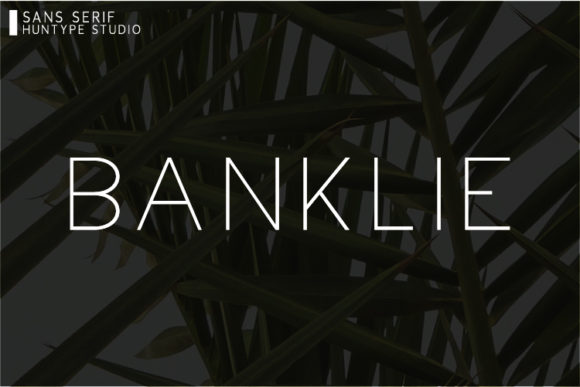
Introducing Banklie Font, the chic sans serif that will transform your designs into works of art.
Indulge in its elegant curves and crisp lines, meticulously crafted to evoke the captivating allure of a beauty salon. Whether you're designing alluring logos, captivating social media posts, or chic invitations, Banklie will add a touch of sophistication to your creations.
Its versatile nature empowers you to express your creativity without limits. From delicate wedding invitations to bold marketing campaigns, Banklie seamlessly adapts to your every design whim. Its smooth transitions and sharp angles create a captivating dance of harmony, ensuring your messages stand out with effortless grace.
Elevate your designs with Banklie Font, where beauty and functionality intertwine seamlessly. Let its enchanting charm captivate your audience and leave a lasting impression that lingers in their minds long after they encounter your creations.